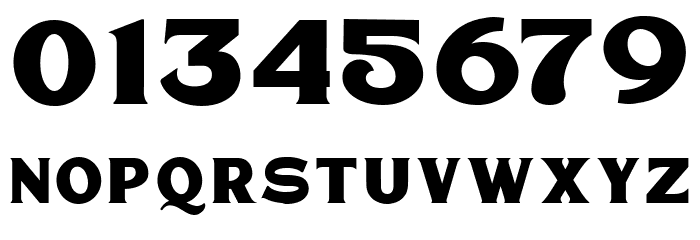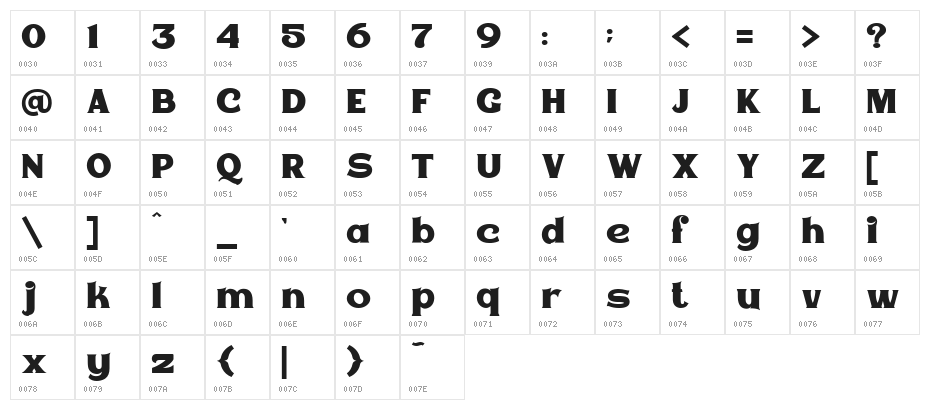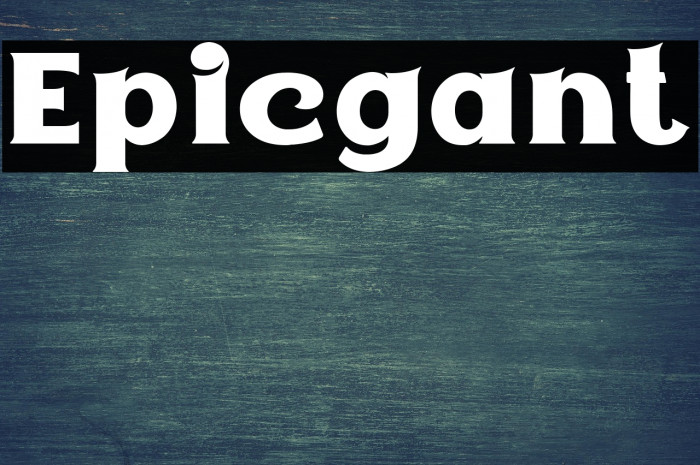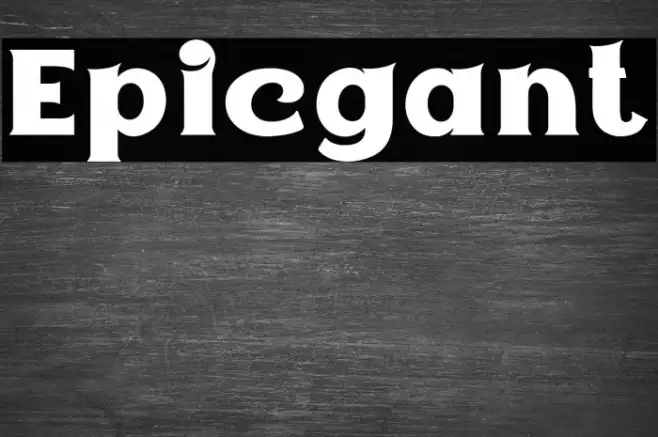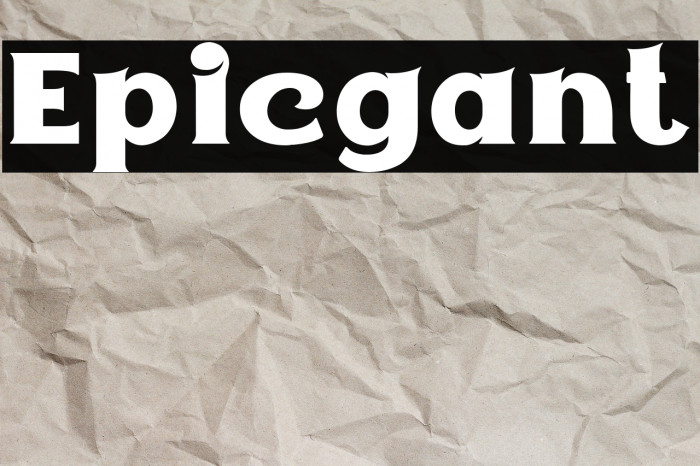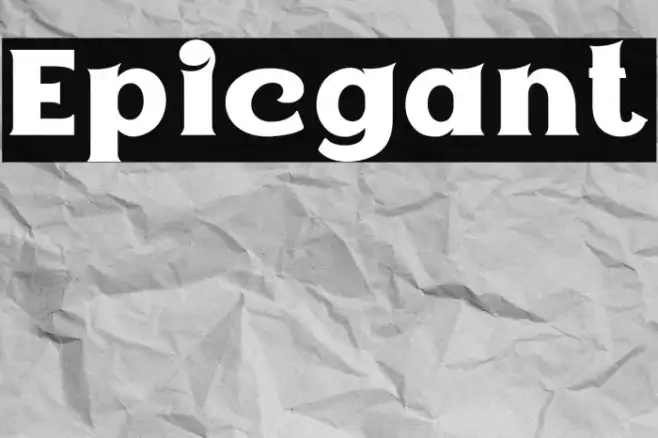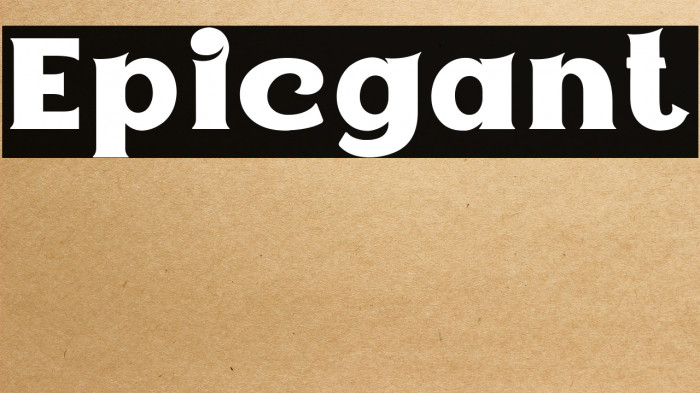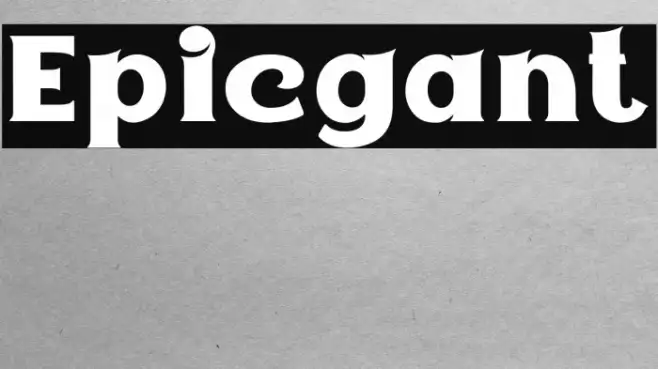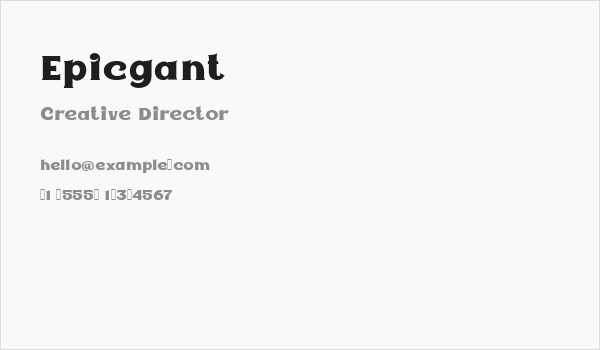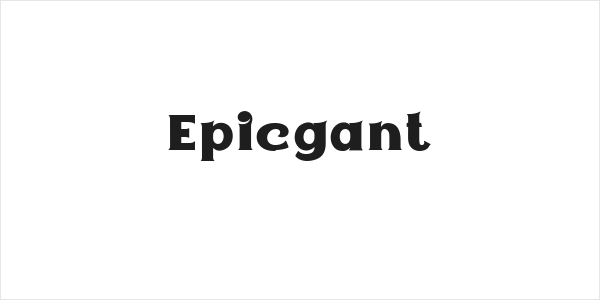
Epicgant Font
Epicgant Description
This font features bold, dramatic strokes with a strong presence, making it ideal for impactful headlines and titles. The characters exhibit a distinct flair with slightly exaggerated serifs, adding a touch of elegance and sophistication. The uppercase letters are particularly commanding, while the lowercase letters maintain a consistent style that complements the overall design. The numerals are robust and clear, ensuring readability in various contexts. This font's unique style is both modern and classic, offering versatility for a range of design projects.
| Overall Style | Modern Classic |
| Proposed Projects | Ideal for branding, posters, book covers, and editorial design. |